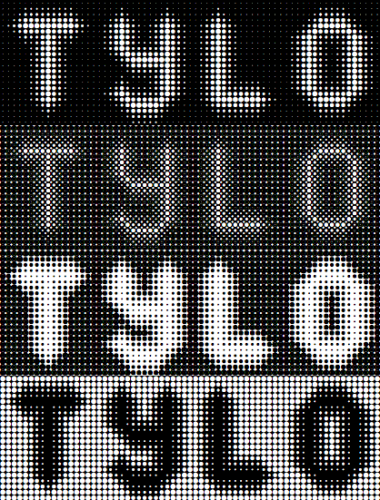
FS Above Ferrofluid
Tylo
I love Ferrofluid.
I'm a sucker for dots. This got me too.
It's very cool how different and special it looks at many sizes. 10 points
this is superb at bigger sizes
Very nice work I love the effect...